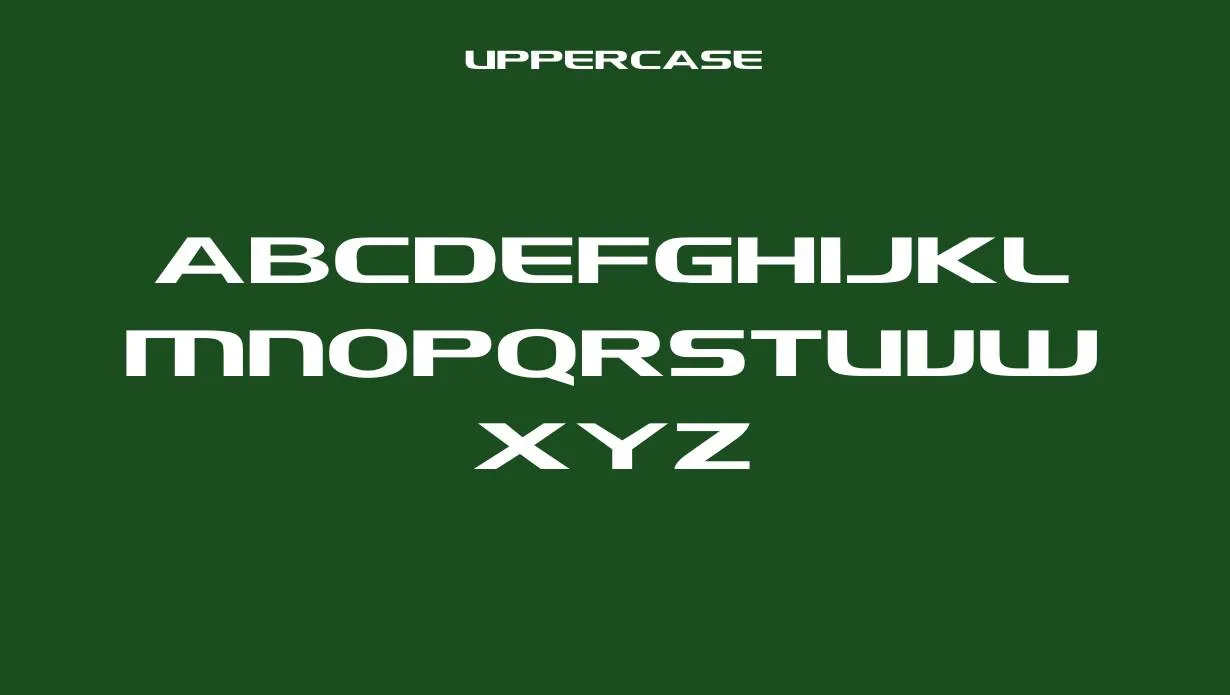
Oregon Ducks Font is an ideal choice for sports-related content, giving it a bold and athletic look. It is a logo font that has sporty bold characters ideal for display projects. You can download this font in OTF and TTF file versions.